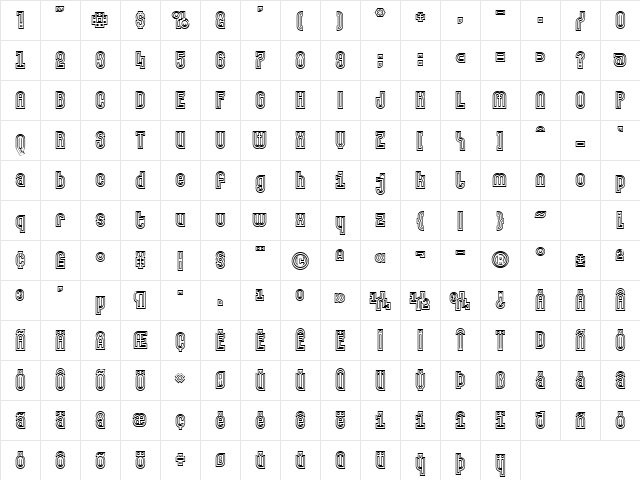
Complete MakushkaQuadriga Regular glyph index. Displaying only characters natively supported by MakushkaQuadriga Regular font.
MakushkaQuadriga is a composed and adaptable typeface that performs quietly and consistently across a wide range of design contexts.